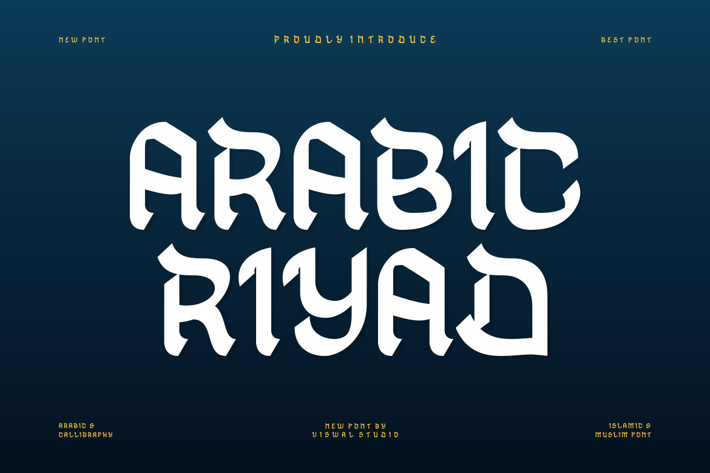
Arabic Riyad - Arabic Font
Presenting Arabic Riyad - Font is suitable for badge, labels, logo, branding, magazine, poster and etc. Our fonts have Uppercase & Lowercase, Numeral & Punctuation, Multilingual support and Opentype Features. For Amazing designs you can mix with other fonts as a complement.